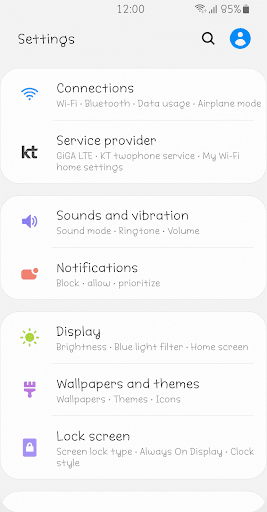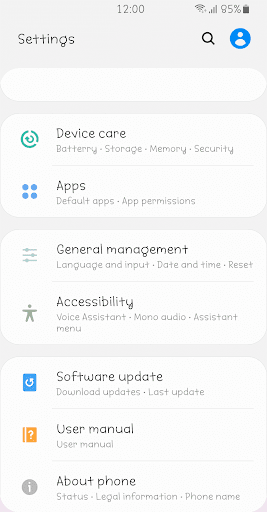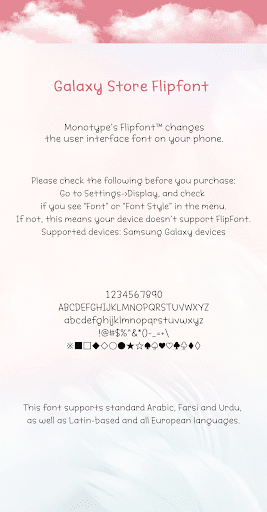
ZFAngelring™ Latin Flipfont
This font has a cute handwriting style with an even weight.
It has a lively appearance with a round shape and simple expression.
The cute posture and bright expression with a pure look will make you smile.
You are my little angel, the only one in the world.
No beautiful words in the world can describe you.
Where did you put your wings and angel ring when you came down from heaven?
If I could only love you forever, I would have nothing else to wish for.
You are my little angel, the only one in the world.